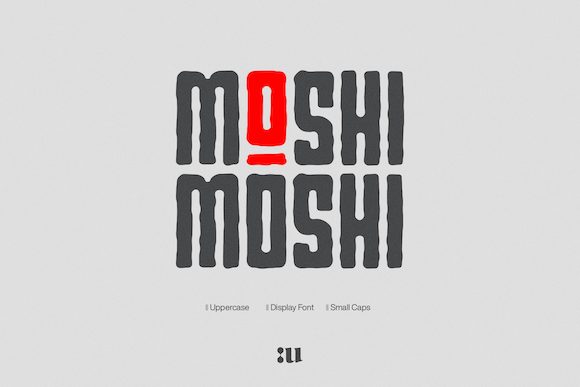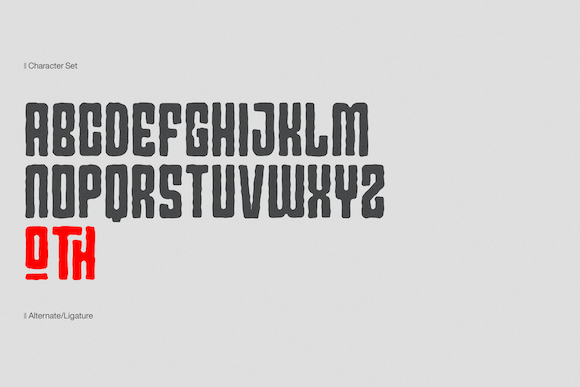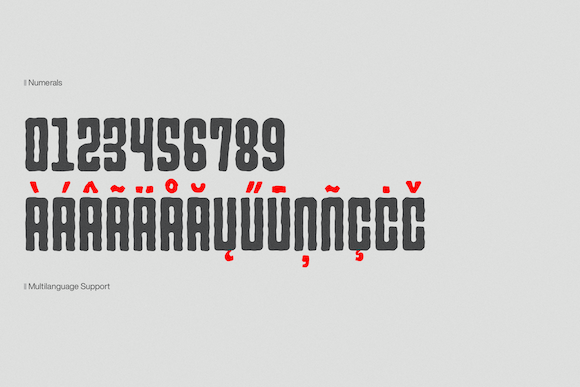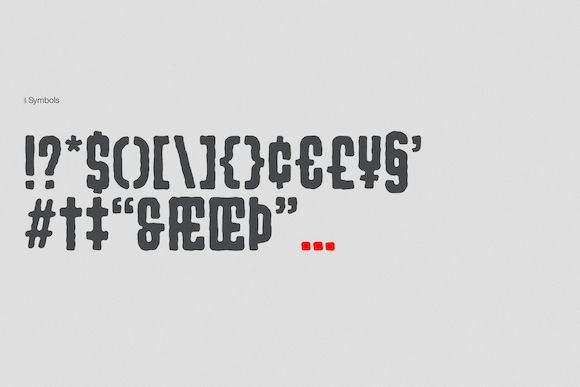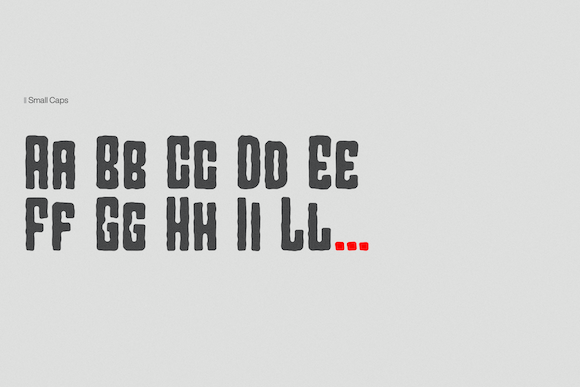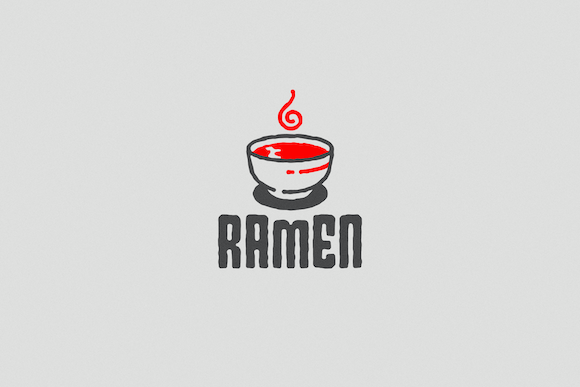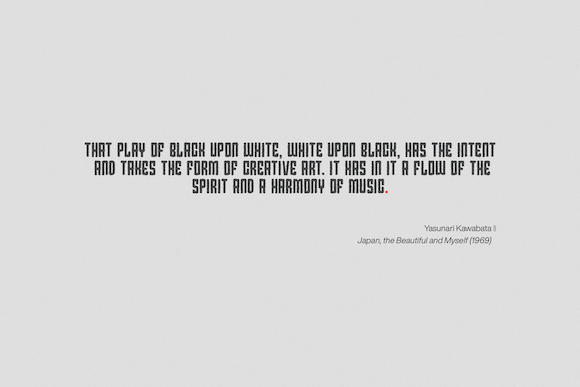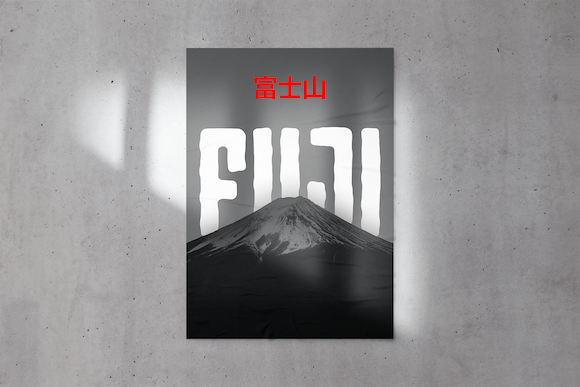
Moshi Moshi Font
About Moshi Moshi Font
Inspired by Japanese street posters, this all-caps block typeface delivers modernness with unique brushy imperfections. Moshi Moshi has rough letterforms, but at the same time communicates a modern and minimalistic style.